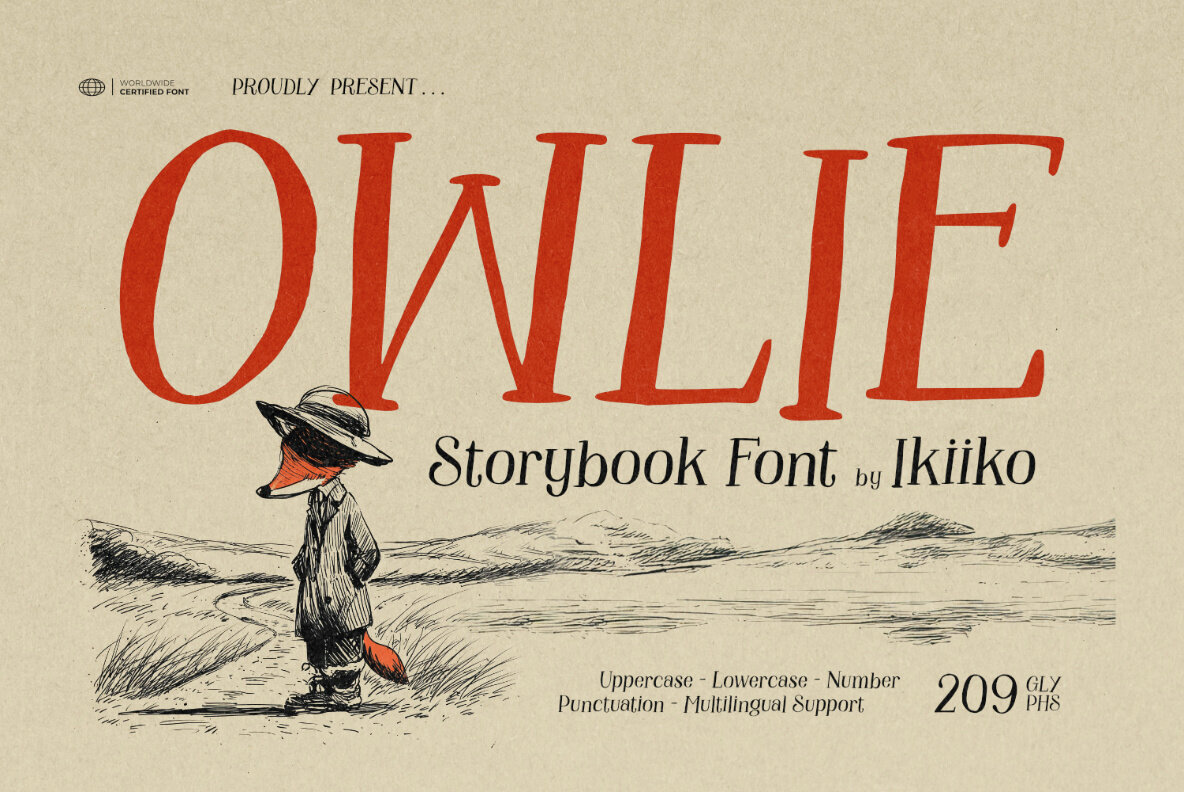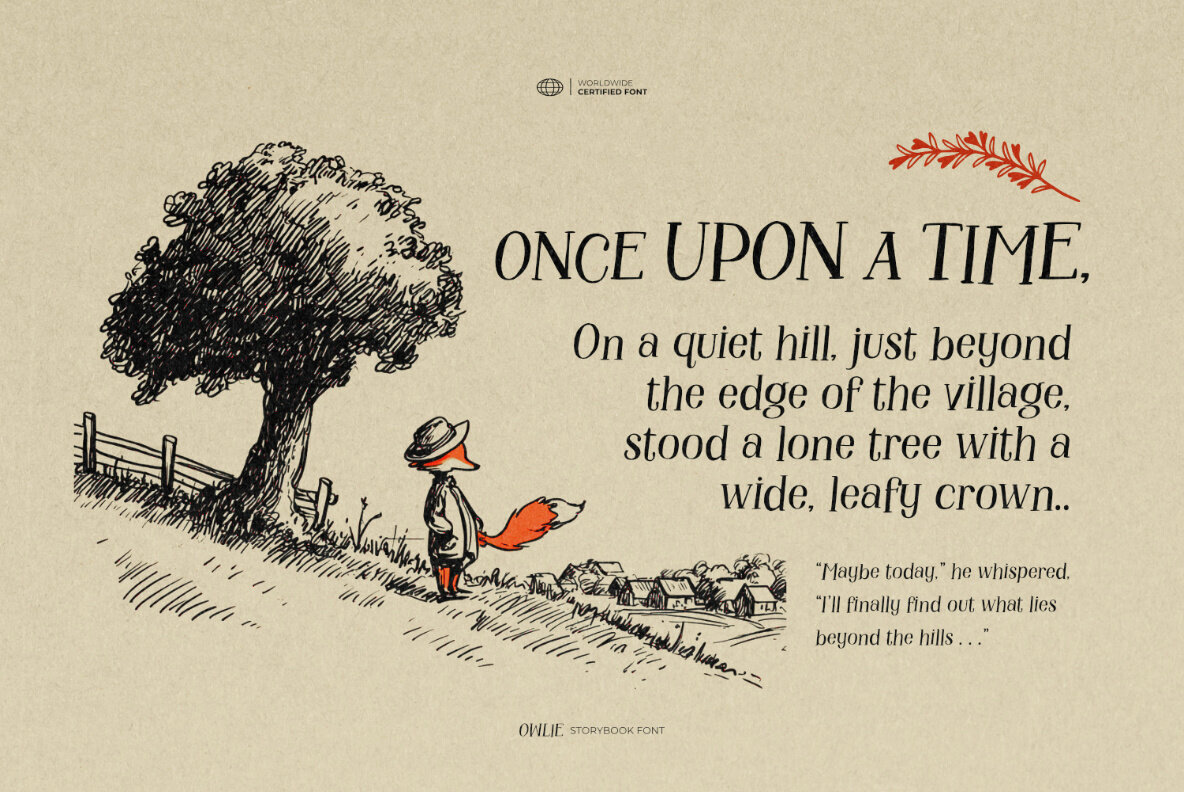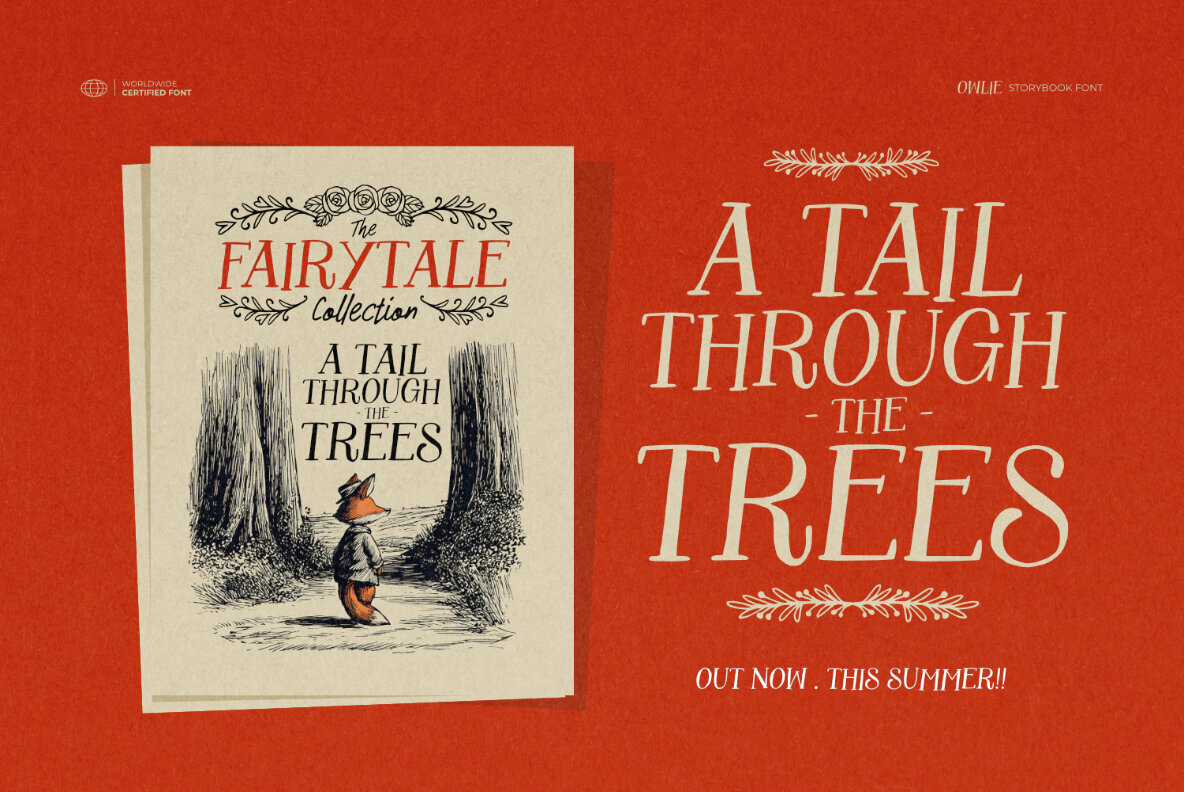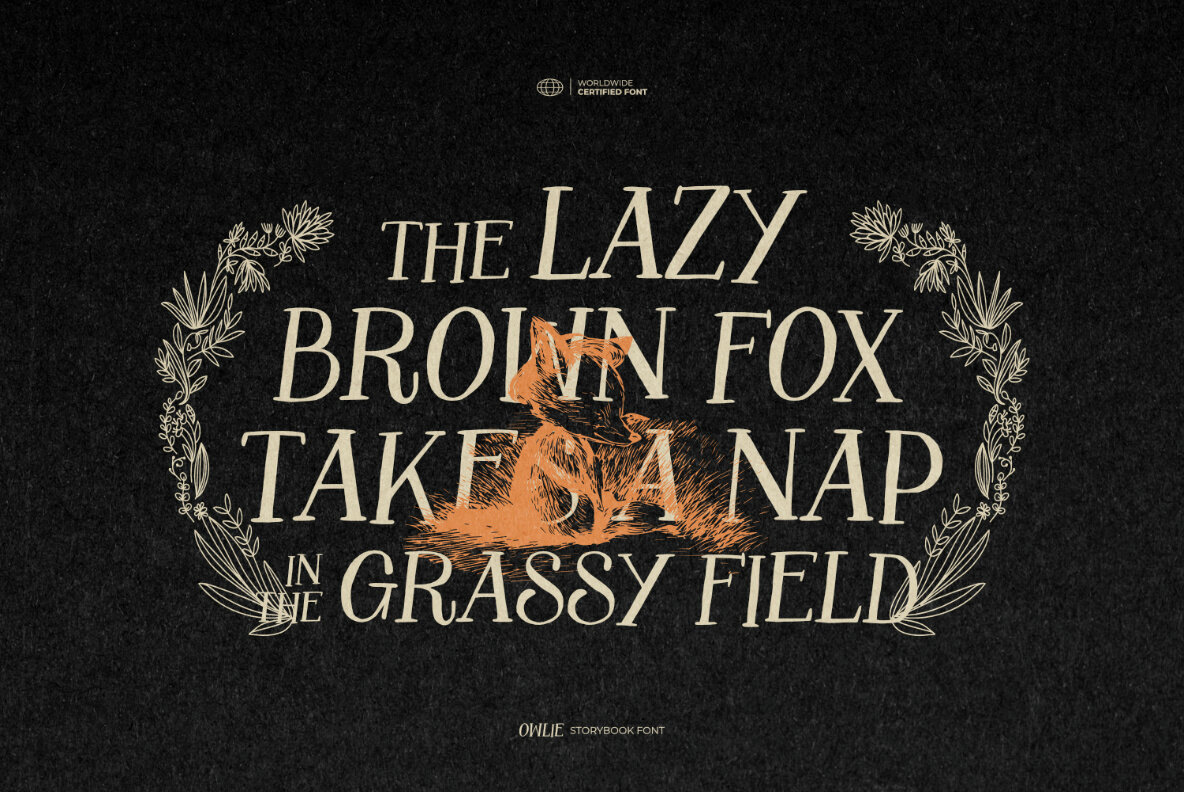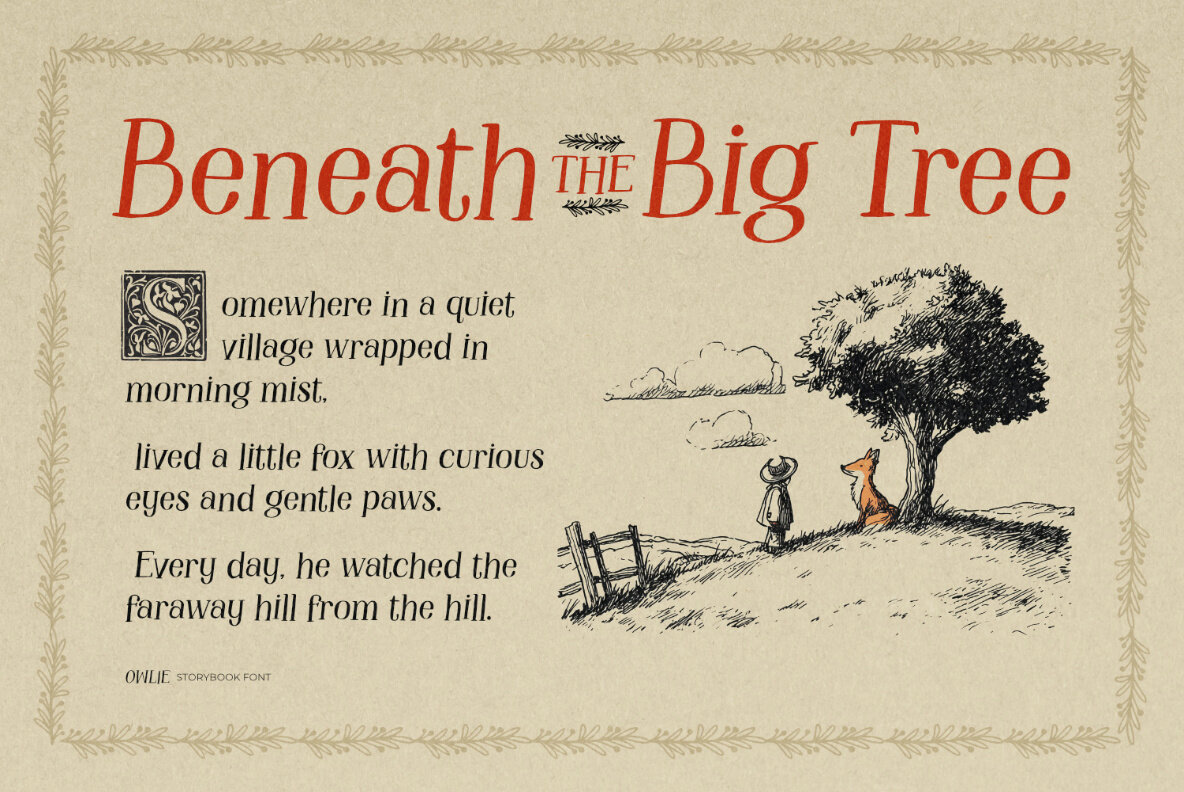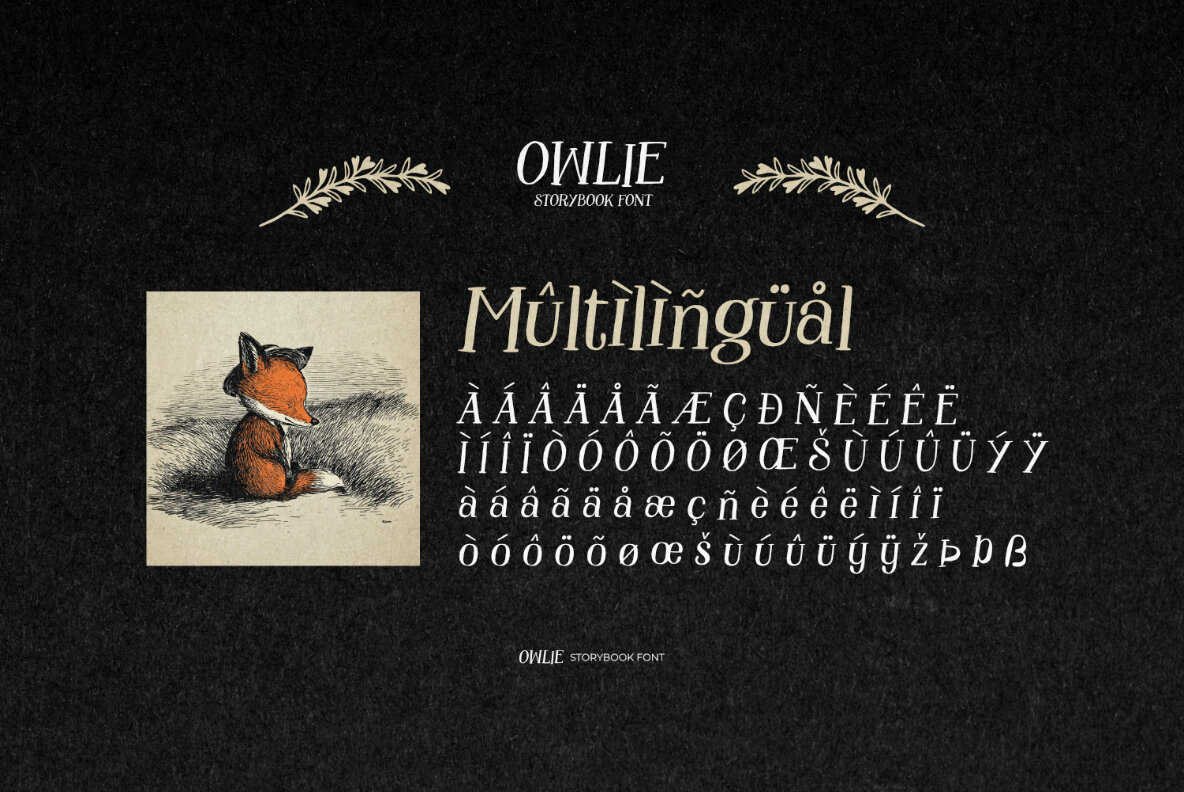
Owlie Font
Owlie
Owlie invites you into a world of fairy tales and imagination. With its dreamy curves and handcrafted charm, this font captures the essence of childhood stories and the magic they hold. It exudes a warm and friendly energy, perfect for designs seeking a touch of whimsy and soul. Whether gracing the cover of a fairy tale book or enhancing whimsical branding, Owlie injects a sense of wonder. More than just a typeface, it guides your designs through enchanted forests and the dreams of talking animals, capturing the imagination with each letter.Owlie: The Enchanting Storybook Font